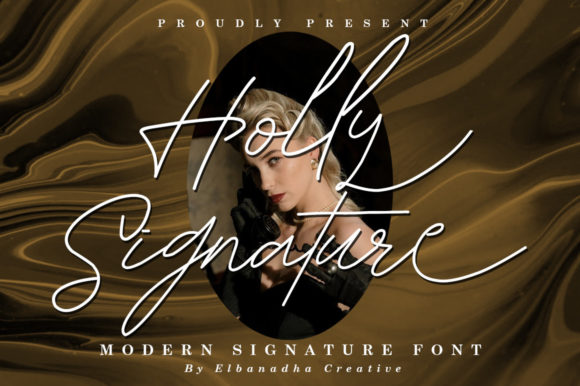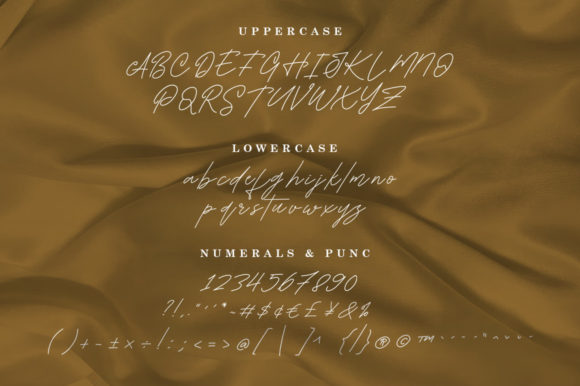
About Holly Signature Font
Holly Signature is a modern, simple, quirky, and adaptable handwritten font. You can successfully add this elegant font on wedding invitations, business cards, greetings cards, social media posts, wall art, and more. This font is PUA encoded which means you can access all of the glyphs and swashes with ease!